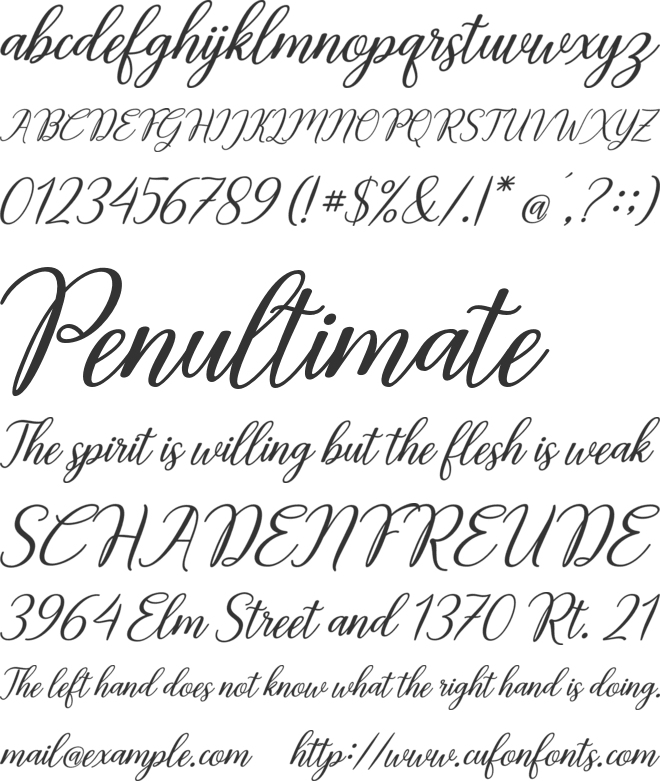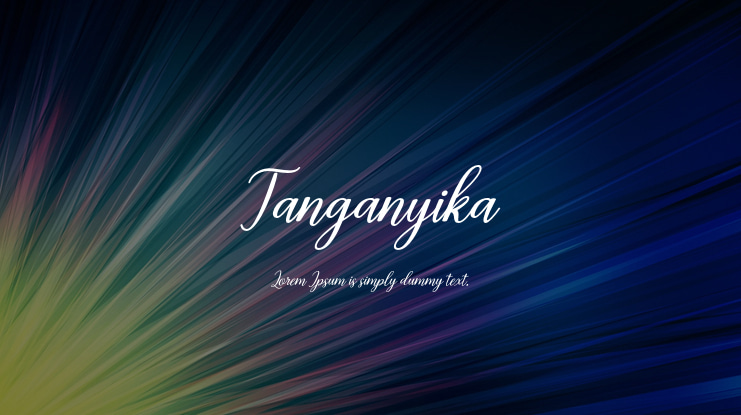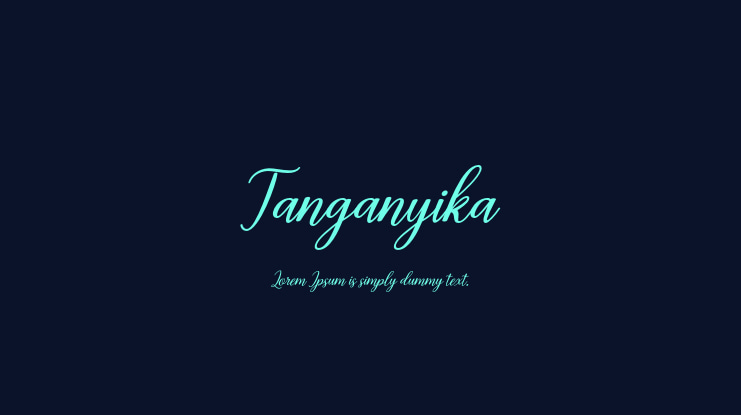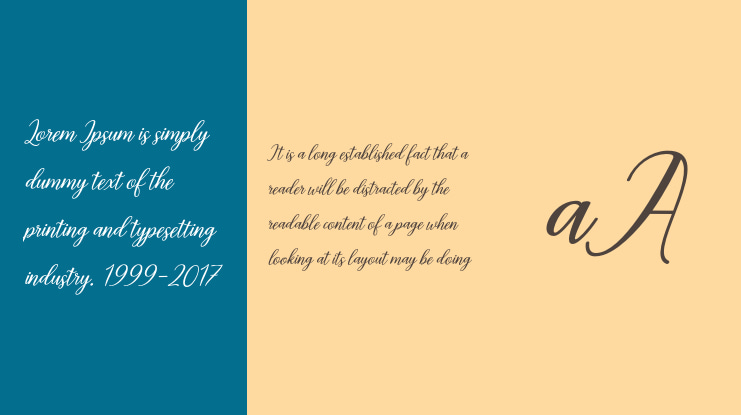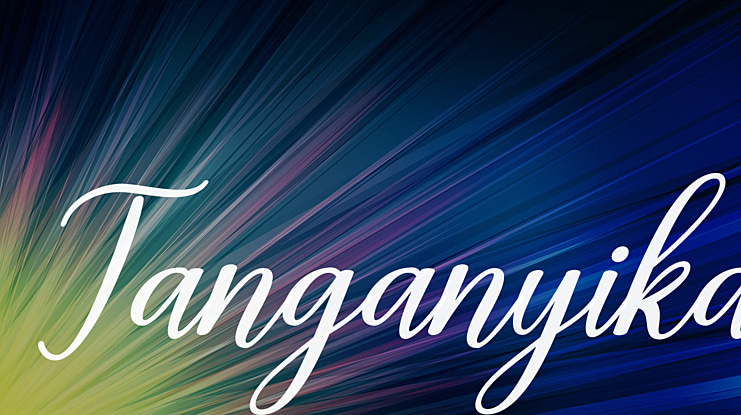
Tanganyika Font
Tanganyika Modern Handwritten Typeface. A collection of letters and numbers suitable your projects also great for Logotype, Branding Design, Logo Design, Digital Lettering Arts, T-Shirt/Apparel, Poster, Magazine, Signs, Advertising Design, and any design needs.Click our website :https://staircaselab.com/product/tanganyika/